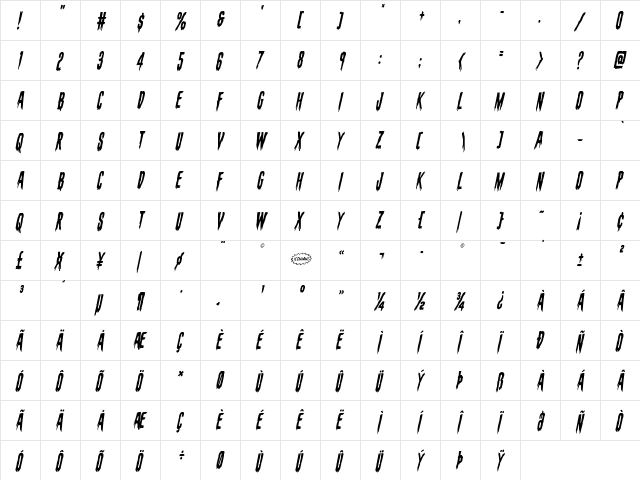
Eva Fangoria Condensed Italic Font Preview
Design Context for Eva Fangoria Condensed Italic Typeface
Eva Fangoria Condensed Italic is a composed and adaptable typeface that performs quietly and consistently across a wide range of design contexts. The slanted form adds forward momentum and visual energy. The condensed width makes it efficient for tight spaces without sacrificing legibility.